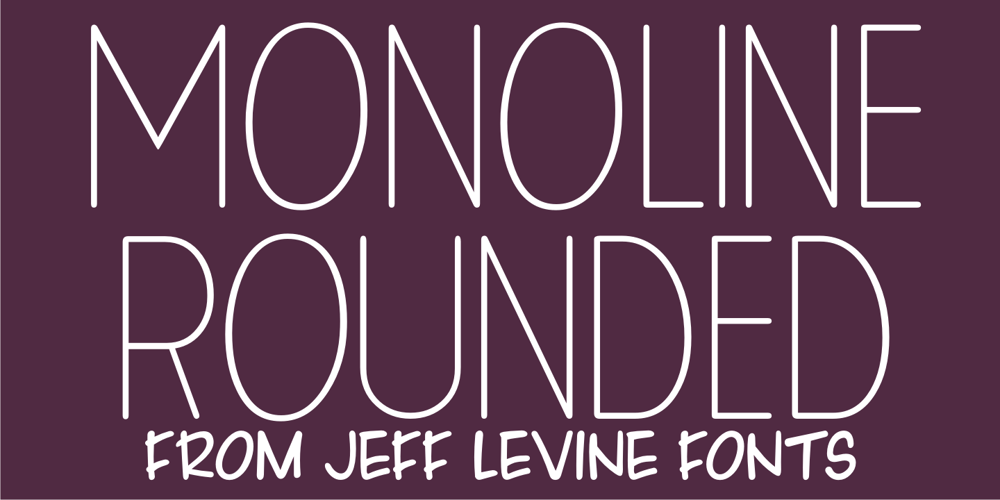
Monoline Rounded JNL Font Family was designed by Jeff Levine and published by Jeff Levine. Monoline Rounded JNL contains 1 styles and family package options. Monoline Rounded JNL borrows the inline portion of Sales Event JNL. Making a few adjustments to some characters, it is now a lovely monoline with rounded terminals that emulates pen hand lettering.